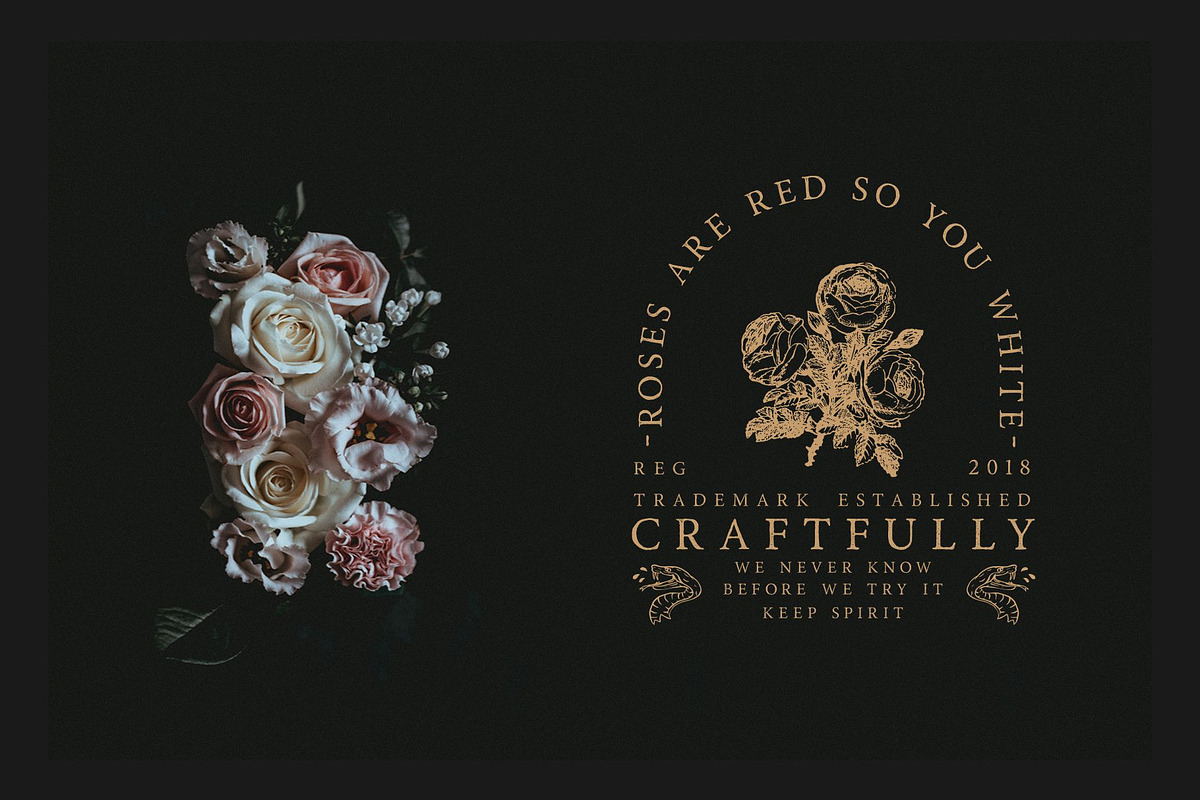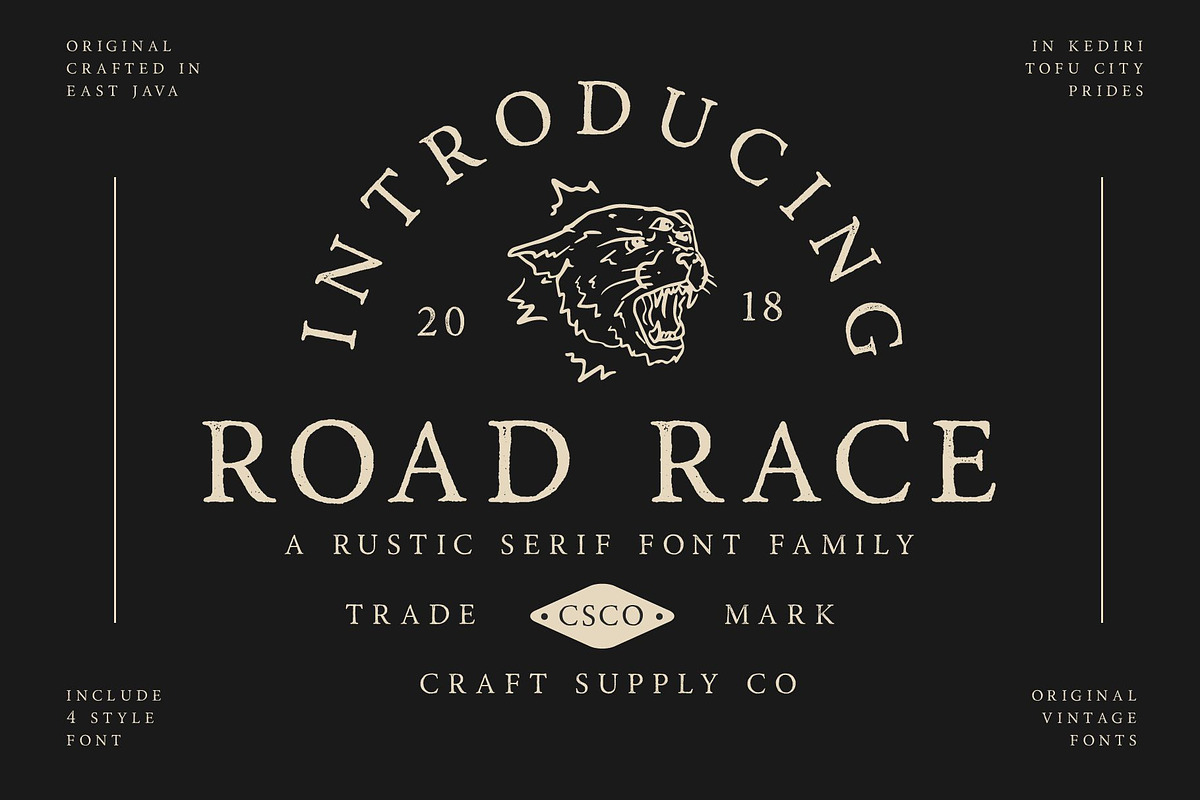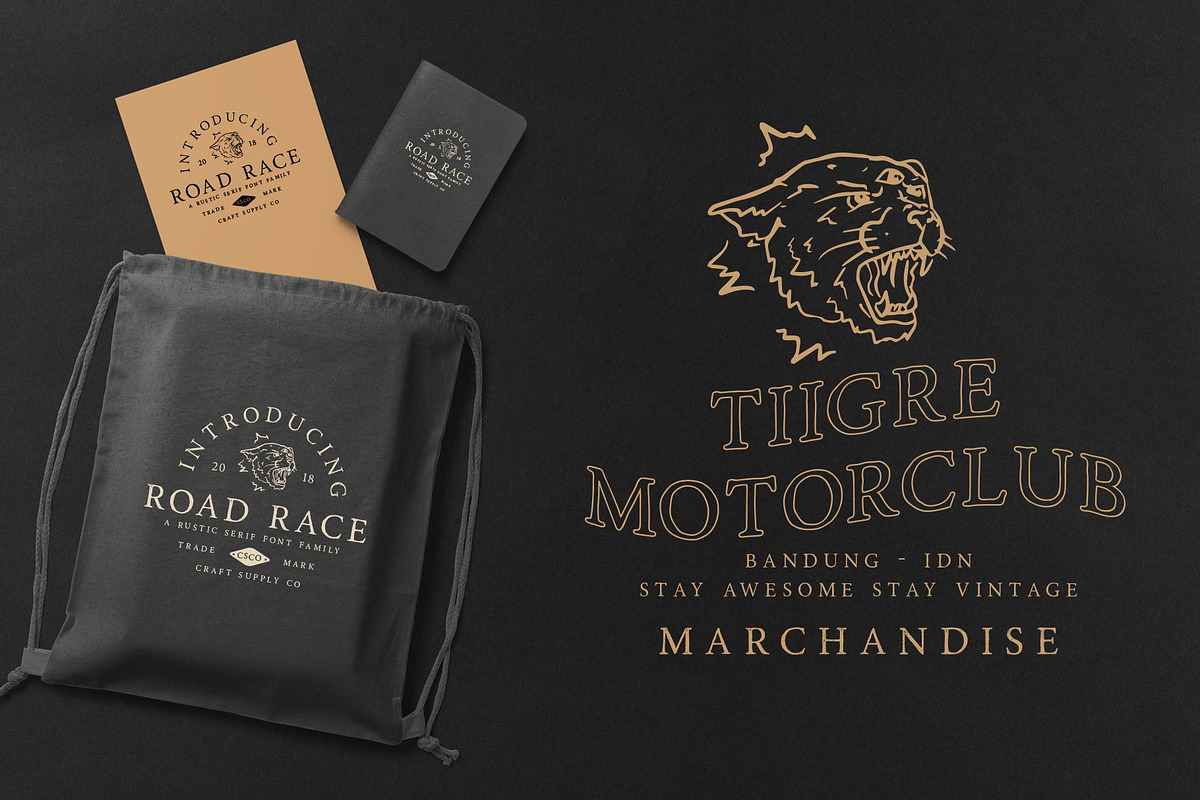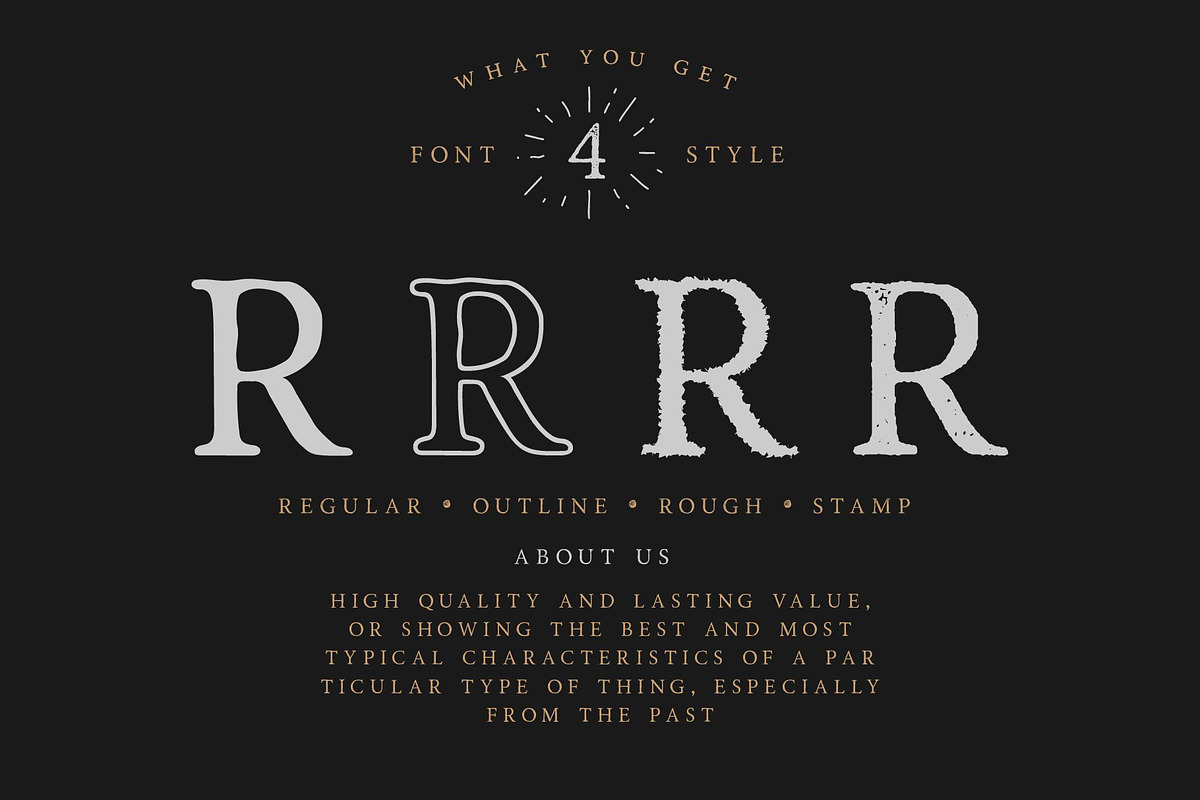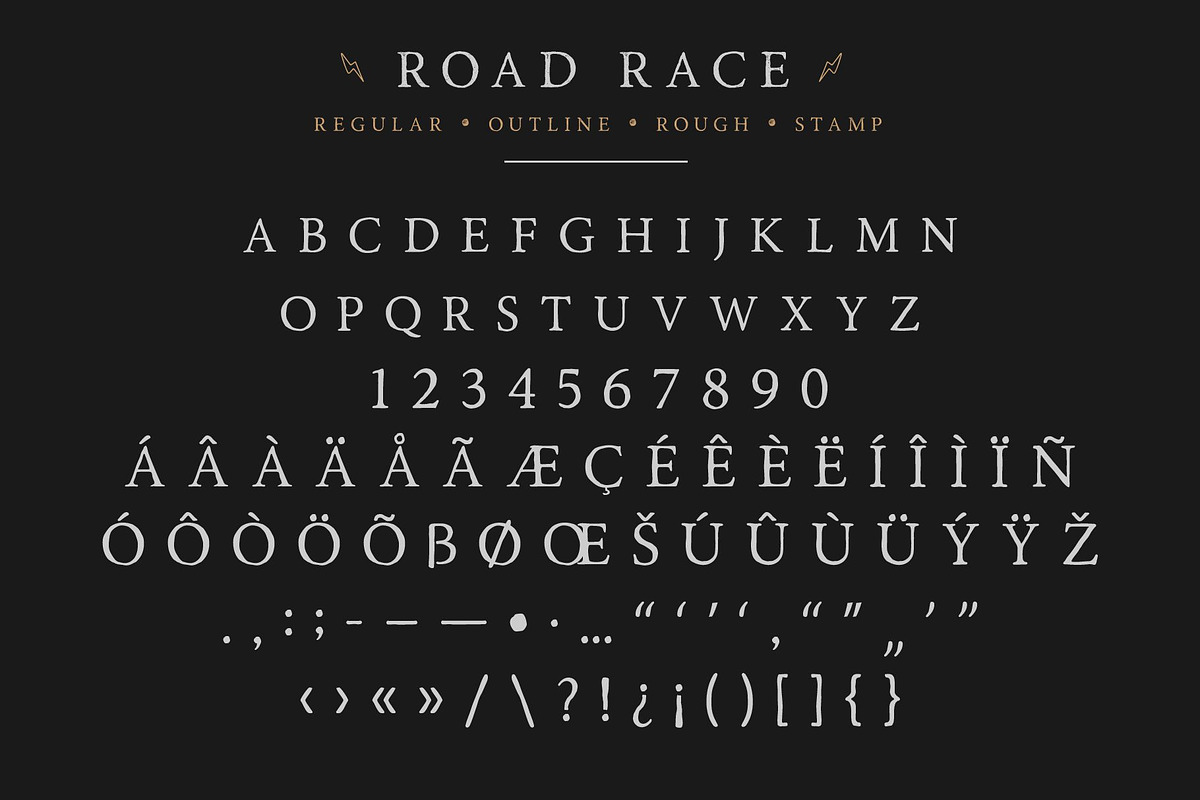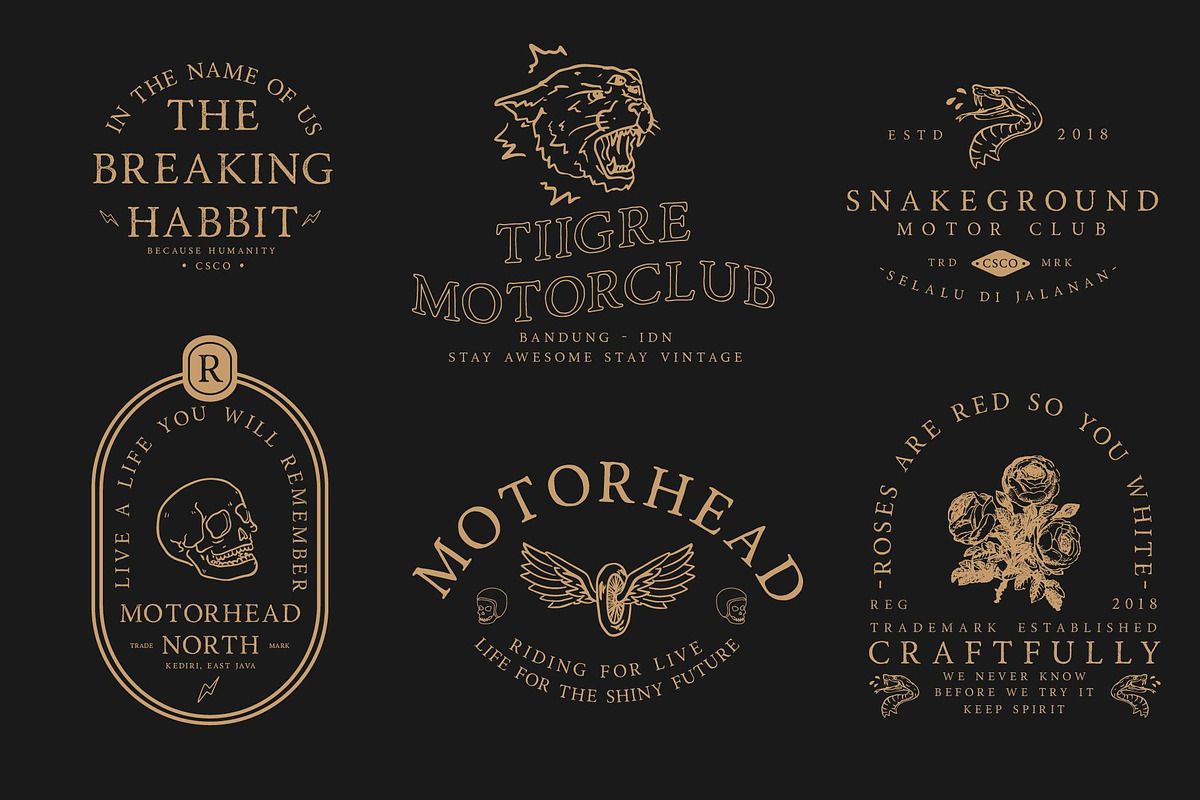
Road Race Font Family + Extras
⚡Introducing Road Race Font Family + Extras Illustrations ⚡
Road Race Font Family + Extras includes 4 Style Fonts. It can be used to create almost all types of design projects like print materials. Just use your imagination and some graphic design set in Extras, your project will become more alive and look great than ever with one of the Road Race font.
You want to make a greeting card or a package design, or even a brand identity, craft design, any DIY project, book title, wedding font, pop vintage design, retro design or any purpose to make your art / design project look pretty and trendy? Feel free to play with all the patterns and shape!
- Road Race Regular
- Road Race Outline
- Road Race Rough
- Road Race Stamp
- All Caps Fonts
- Accents (Multilingual characters) (AÀÁÂÃÄÅCÇDÐEÈÉÊËIÌÍÎÏNÑOØÒÓÔÕÖUÙÜÚÛWYÝŸỲŸÆŒßÞ)